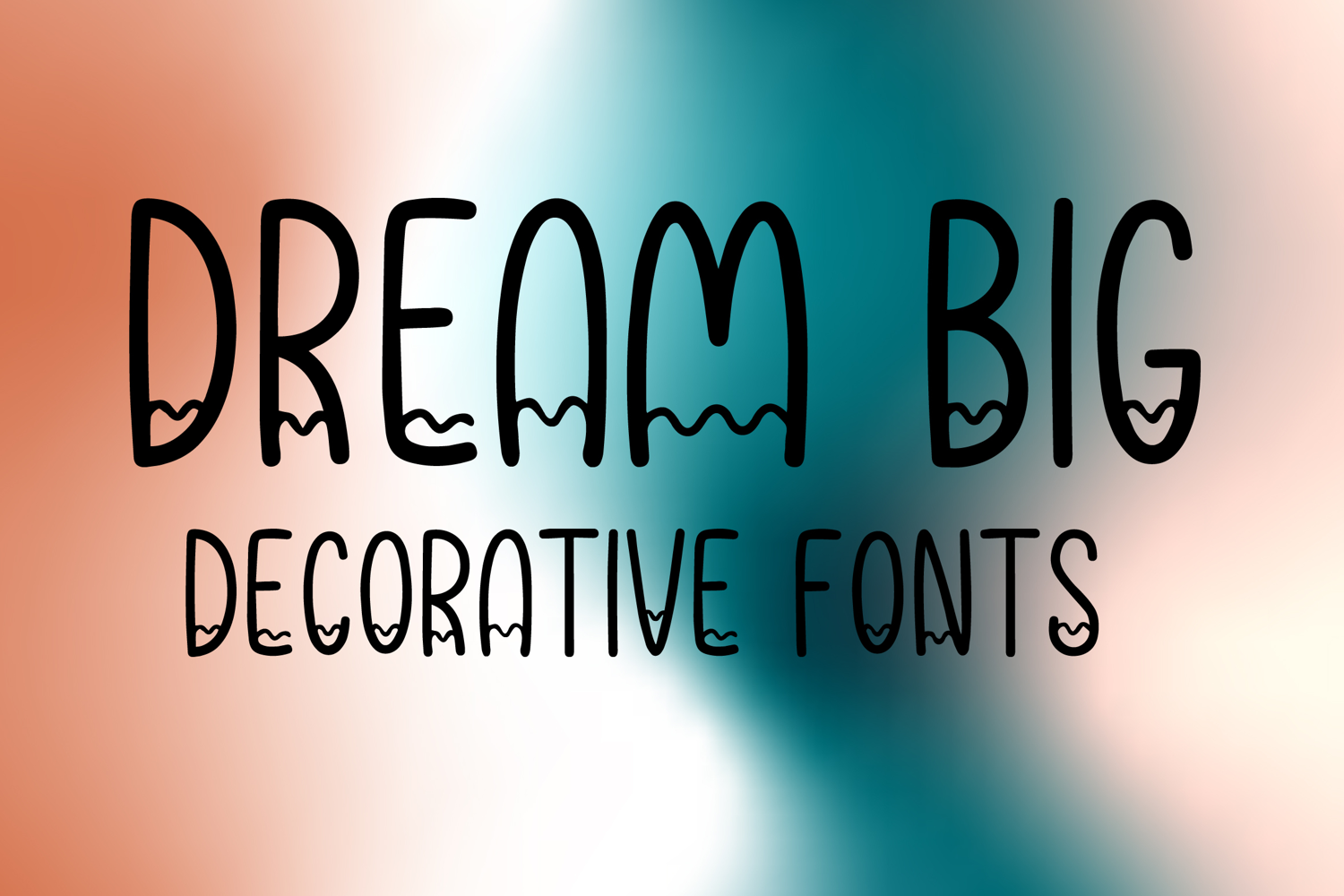
DREAM BIG
DREAM BIG is a playful decorative display font with a tall hand-drawn style and charming whimsical character. Its uppercase letterforms feature slim strokes, rounded shapes, and cute wavy inner details that create a fun, friendly, and eye-catching look. Designed with uppercase letters A–Z and numbers 0–9, DREAM BIG is perfect for branding, posters, packaging, invitations, logos, social media graphics, and creative projects that need a cheerful and memorable statement.